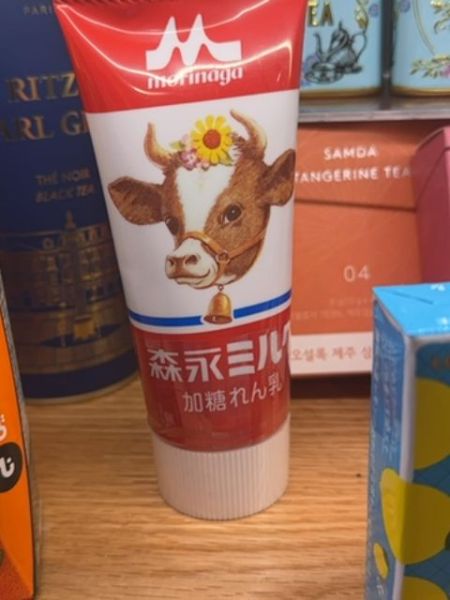
Morinaga Milk
Condensed milk used for sweetening and flavoring desserts, beverages, and foods.
The typography uses bold, sans-serif characters for the brand name 'Morinaga,' giving it a modern yet approachable feel. Japanese characters are bold and legible, harmonizing well with the playful illustration on the packaging.
The packaging is a squeezable tube with a vibrant red cap, featuring an illustration of a cow adorned with a flower. The product name is prominently displayed below the illustration with additional details in Japanese characters.
- Morinaga is a well-established brand in Japan.
- The product is popular for use in both home cooking and professional kitchens.
- Condensed milk is often used in coffee and desserts.